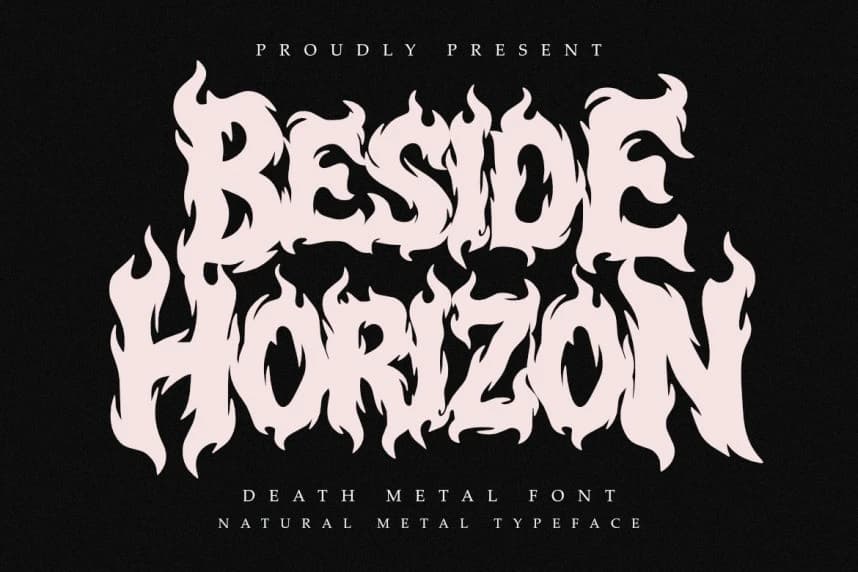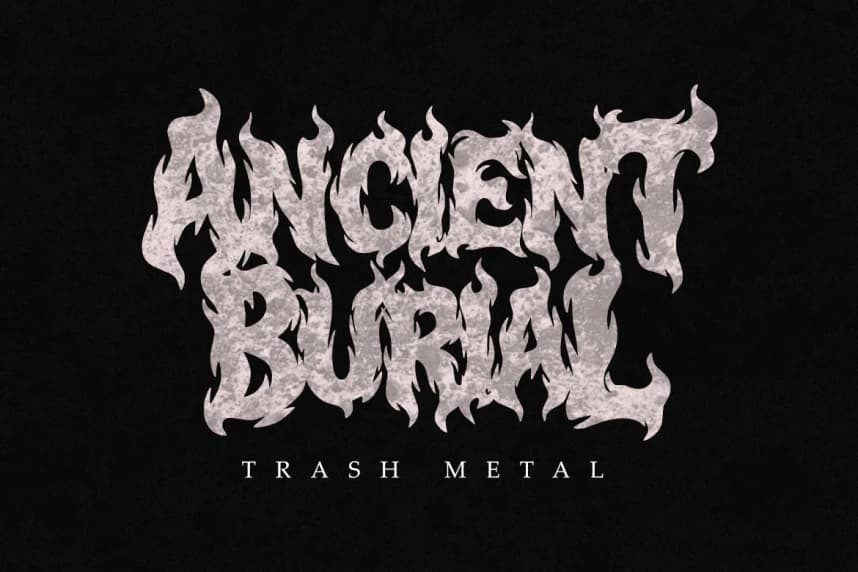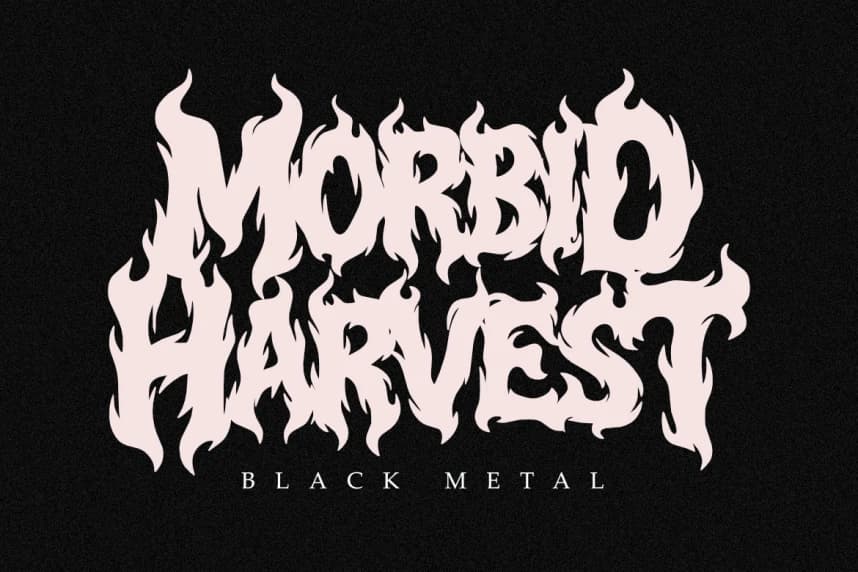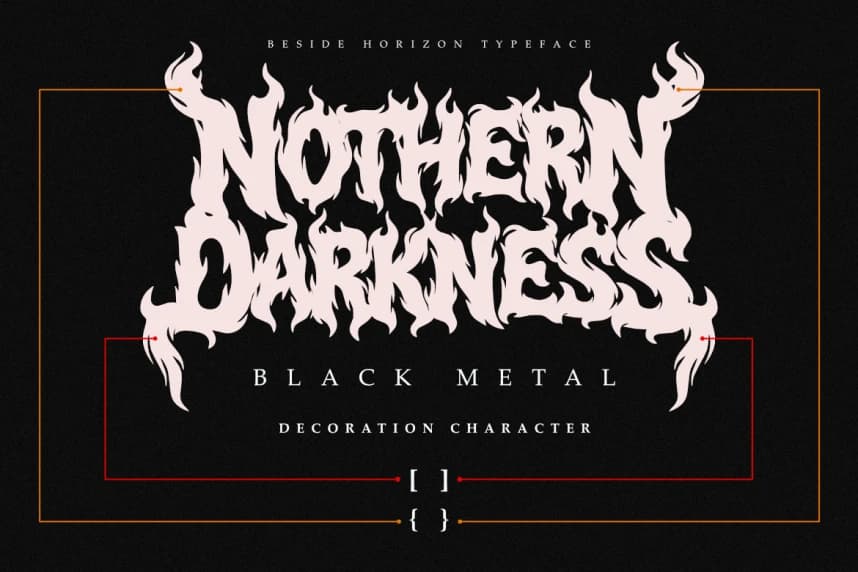
Beside Horizone Font
Beside Horizon Font is a brutal professional font designed for sophisticated branding and high-end extreme design projects. Its fluid and aggressive letterforms provide a contemporary yet timeless feel, striking a perfect balance between organic fire-like structures